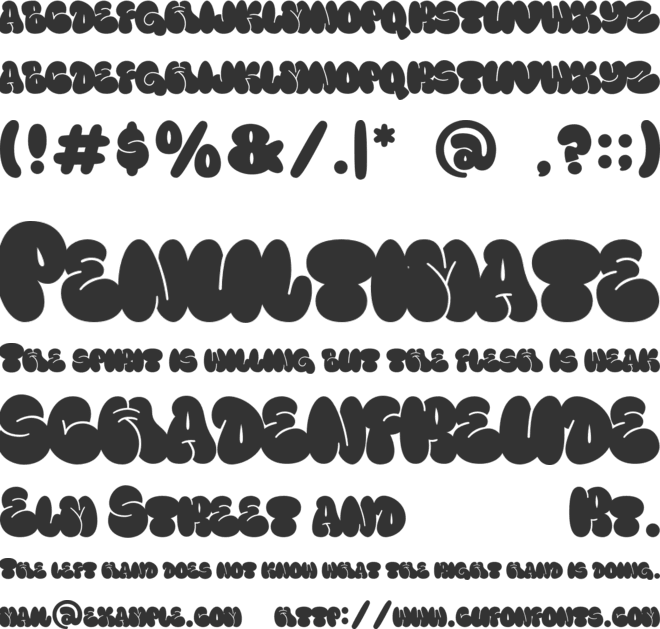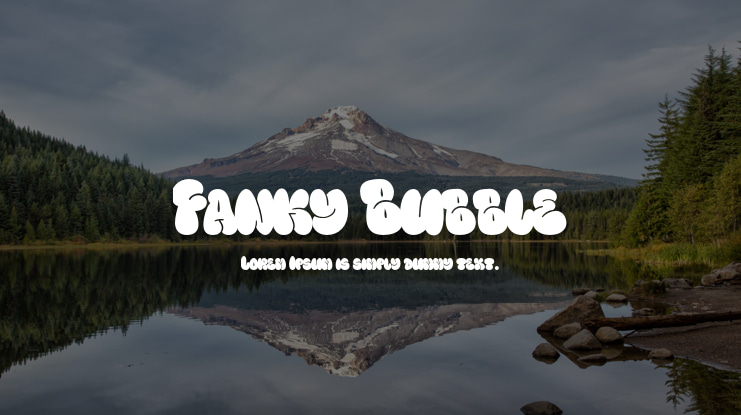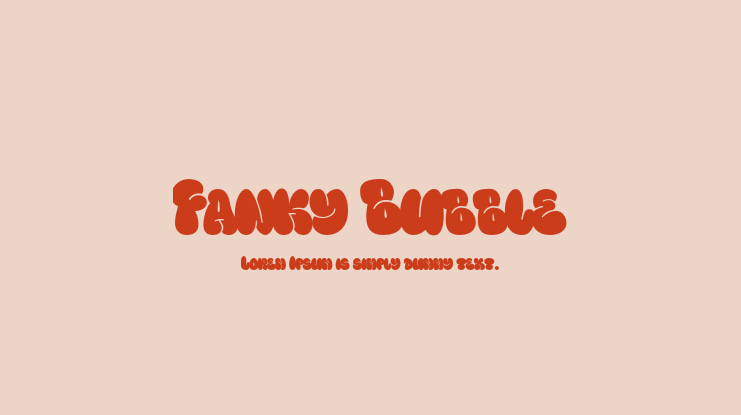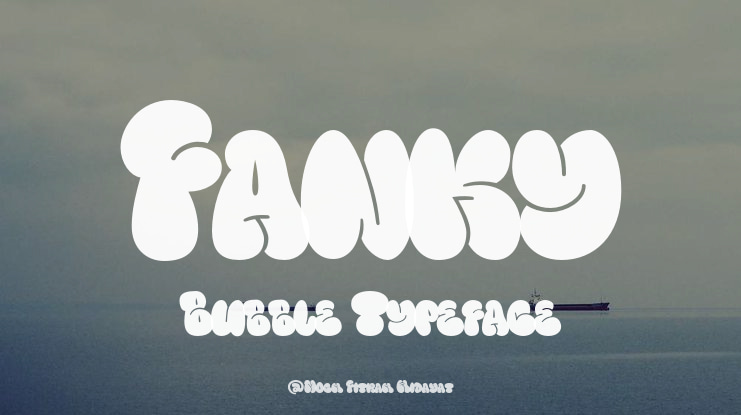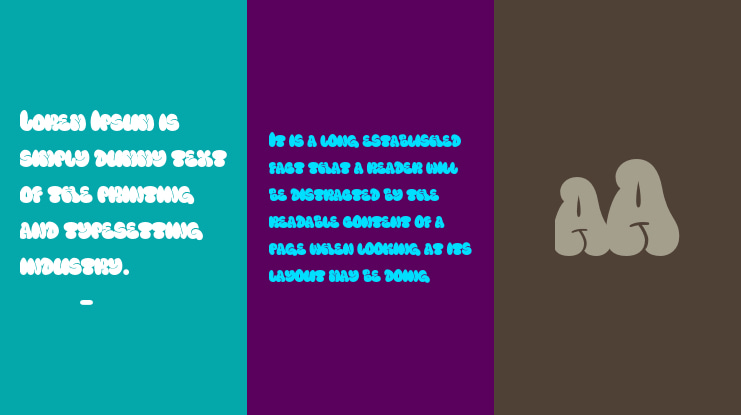
Fanky Bubble Font Family
Moch Fitrah Hidayat
Introducing the latest sensation in typography: Fanky Bubble! Drawing inspiration from dynamic bubble graffiti, Fanky Bubble bursts onto the scene with a bold, vibrant identity. This remarkable font offers three distinct styles: Regular, Line, and Extrude. Each letter embodies the rebellious spirit of street art, making it an artful and audacious rendition of classic graffiti, perfect for achieving a standout look.